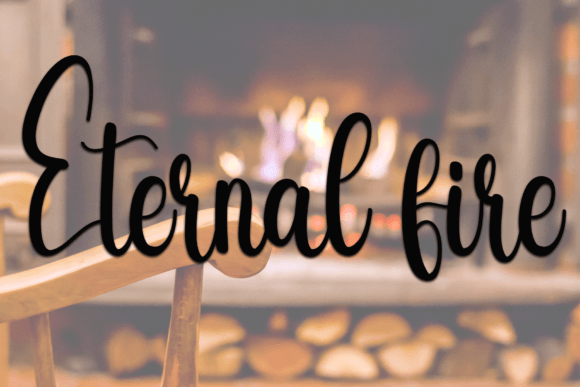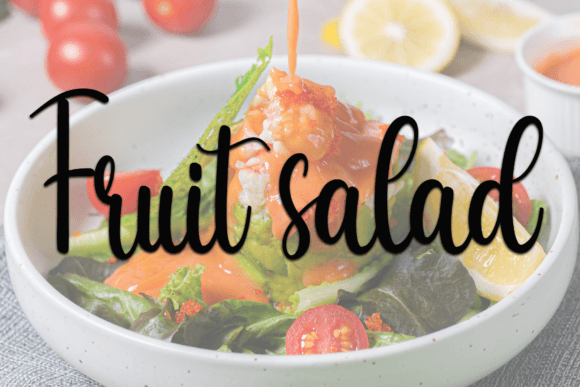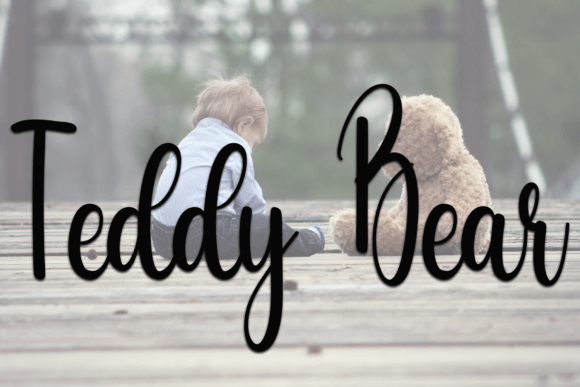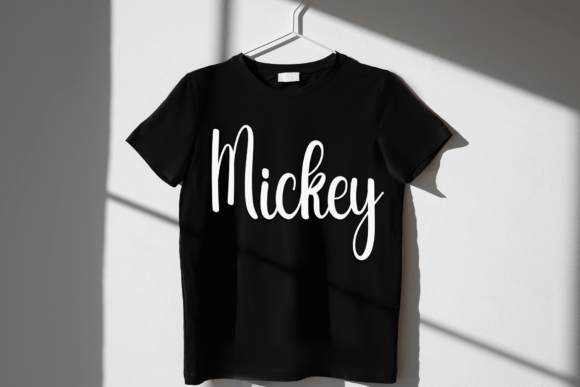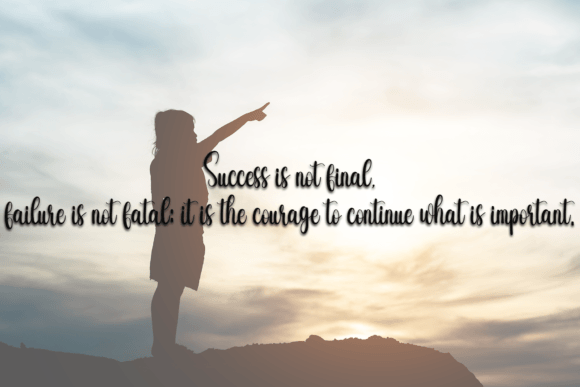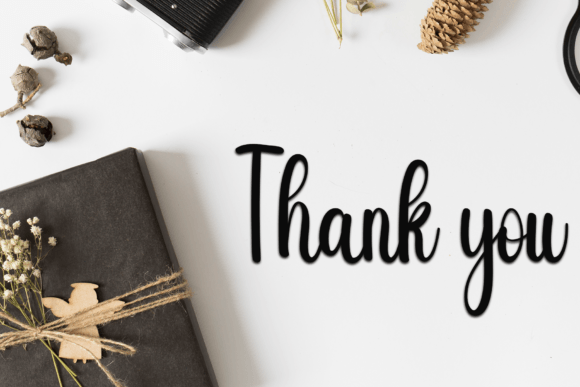
Introduction to Santa Pudding Font
Have you ever been working on a creative project, pouring your heart and soul into it, only to feel like something is missing? For many designers, this is a common phenomenon, especially when it comes to finding the perfect font to match their vision. This is where the Santa Pudding Font comes in – a game-changing design resource that can elevate your project to new heights.
Imagine adding a dash of whimsy and personality to your design, making it stand out from the crowd and capture the attention of your audience. The Santa Pudding Font is a cool, simple, and playful handwritten font that is incredibly versatile, making it the perfect fit for a wide range of designs. With its transparent background and high-quality design, this font is a must-have for any designer looking to take their creative project to the next level.
Key Features of Santa Pudding Font
- High-quality, unique font design perfect for creative projects and festive themes.
- Features a transparent background, allowing for seamless integration with various backgrounds and designs.
- Unique characteristics: bold, playful, and whimsical design elements, perfect for adding a festive touch to designs.
Honest Review: Santa Pudding Font
As a designer, I’m always on the lookout for high-quality fonts to elevate my creative projects. The Santa Pudding Font caught my attention with its unique and playful style, making it perfect for festive and fun designs.
Here’s what I like about this font:
- ✨ The font comes in a transparent background, making it easy to layer over images or colors.
- ✨ The font is highly customizable, with various weights and styles to suit different design needs.
- ⚠️ The font may not be suitable for formal or professional projects, as its playful style may not convey the right tone.
Overall, I’m impressed with the Santa Pudding Font and would recommend it for designers working on creative projects that require a fun and festive touch. Its high quality and customizability make it a valuable resource in any design library.
The Santa Pudding Font is a high-quality, free download design resource ideal for creative projects. This font is versatile and can be used in a variety of applications, from digital designs to print materials.
For the best results, use the Santa Pudding Font on a transparent background to create a seamless design experience. Experiment with different font sizes and styles to add visual interest to your design.
The Santa Pudding Font is ideal for use in a variety of creative projects, including digital designs, print materials, and social media graphics. Its high-quality design and free download make it a valuable resource for designers of all levels.